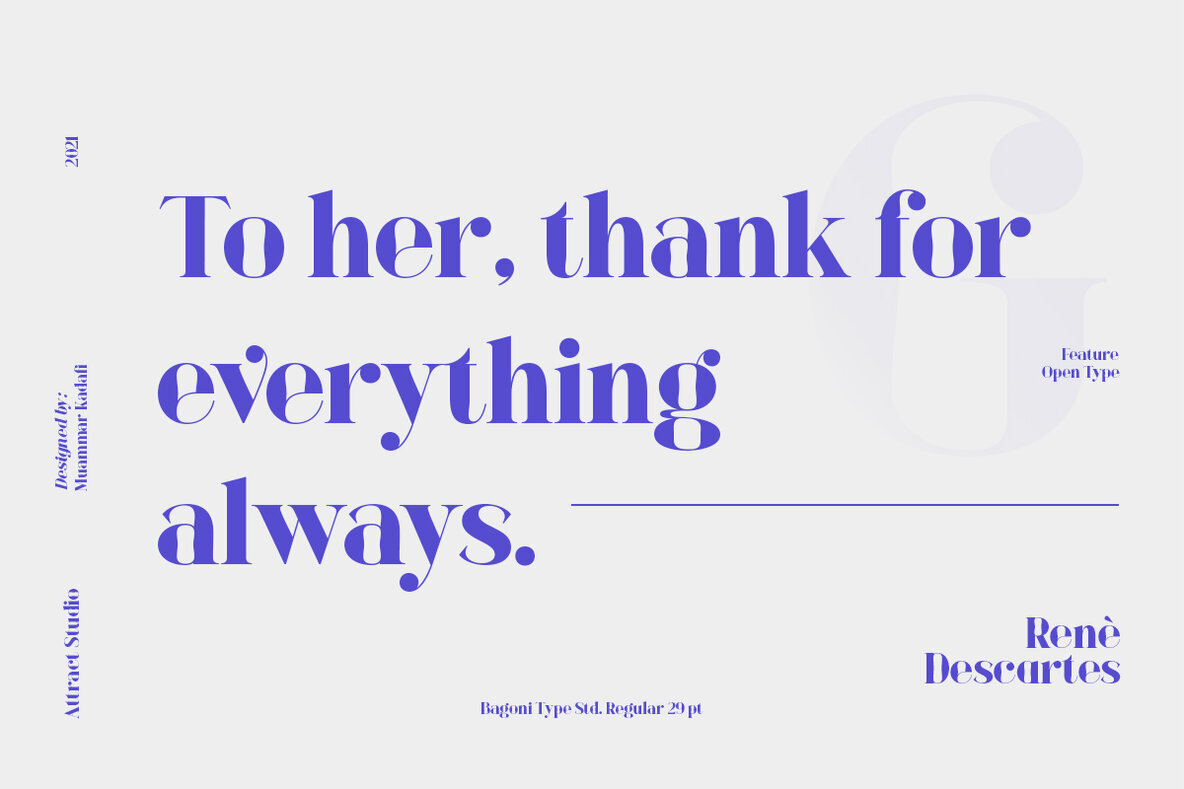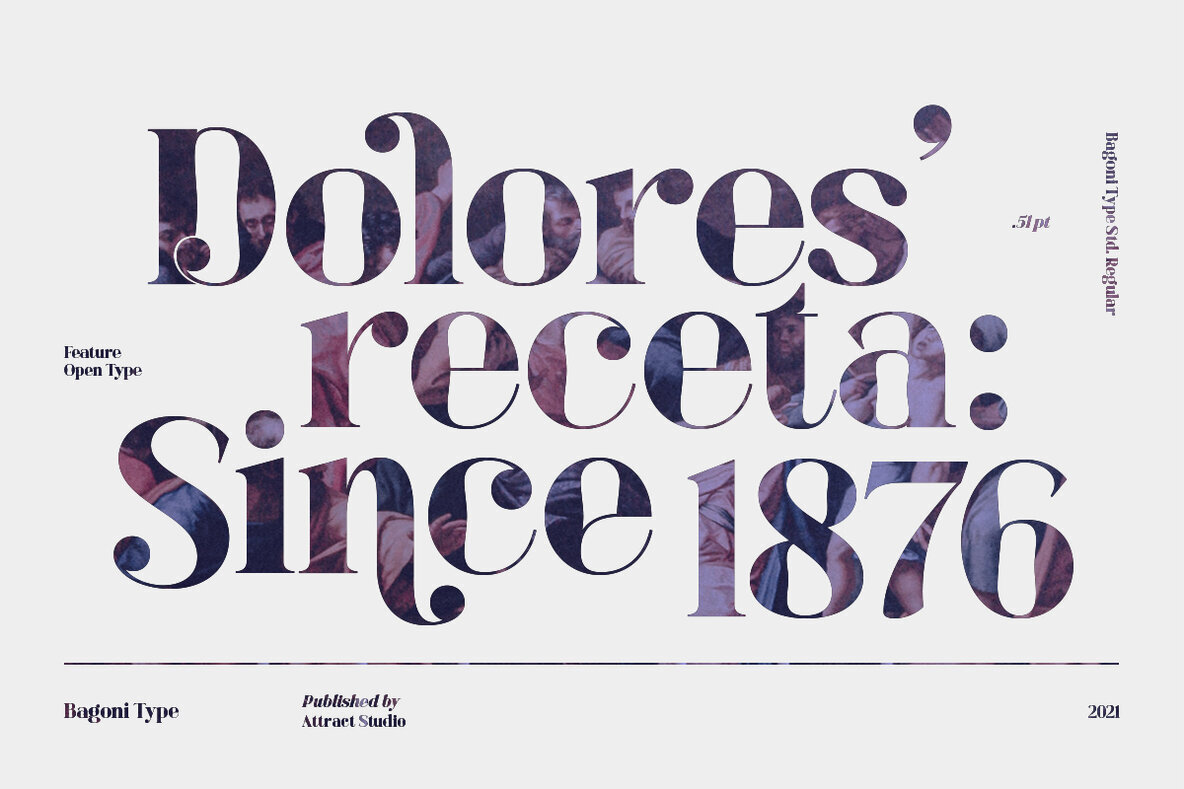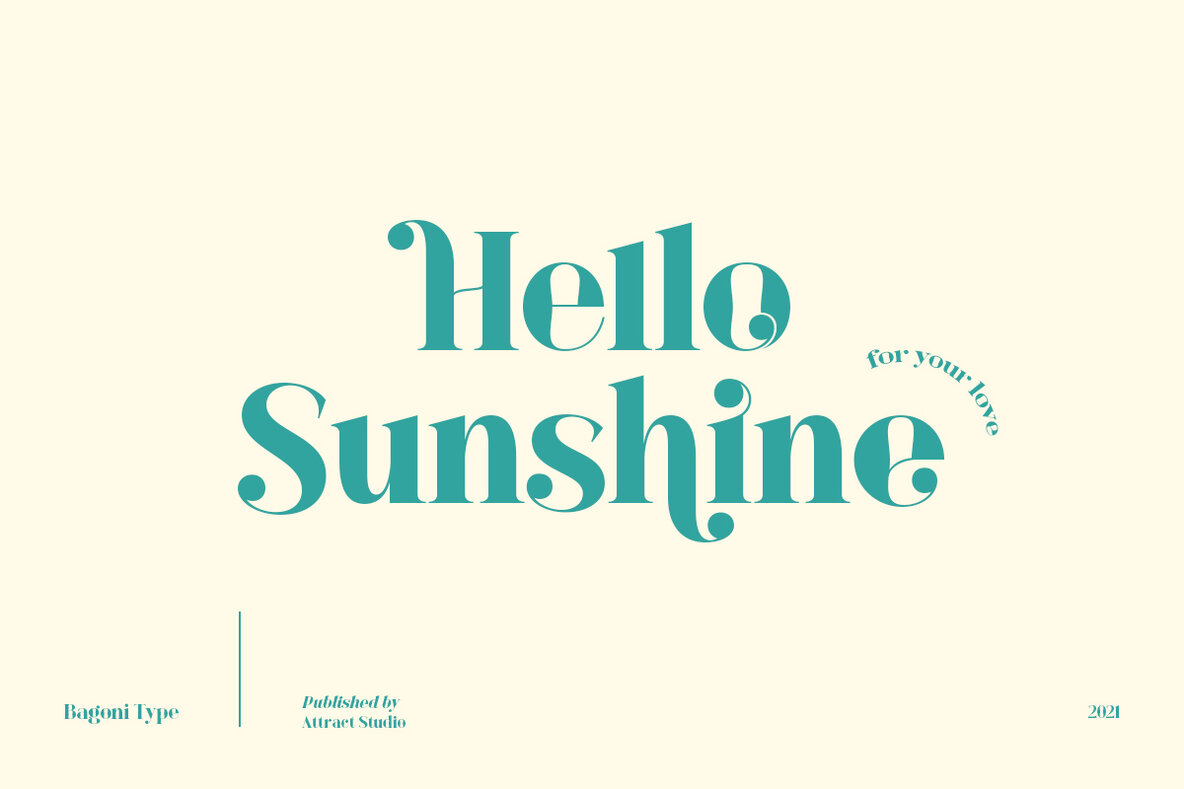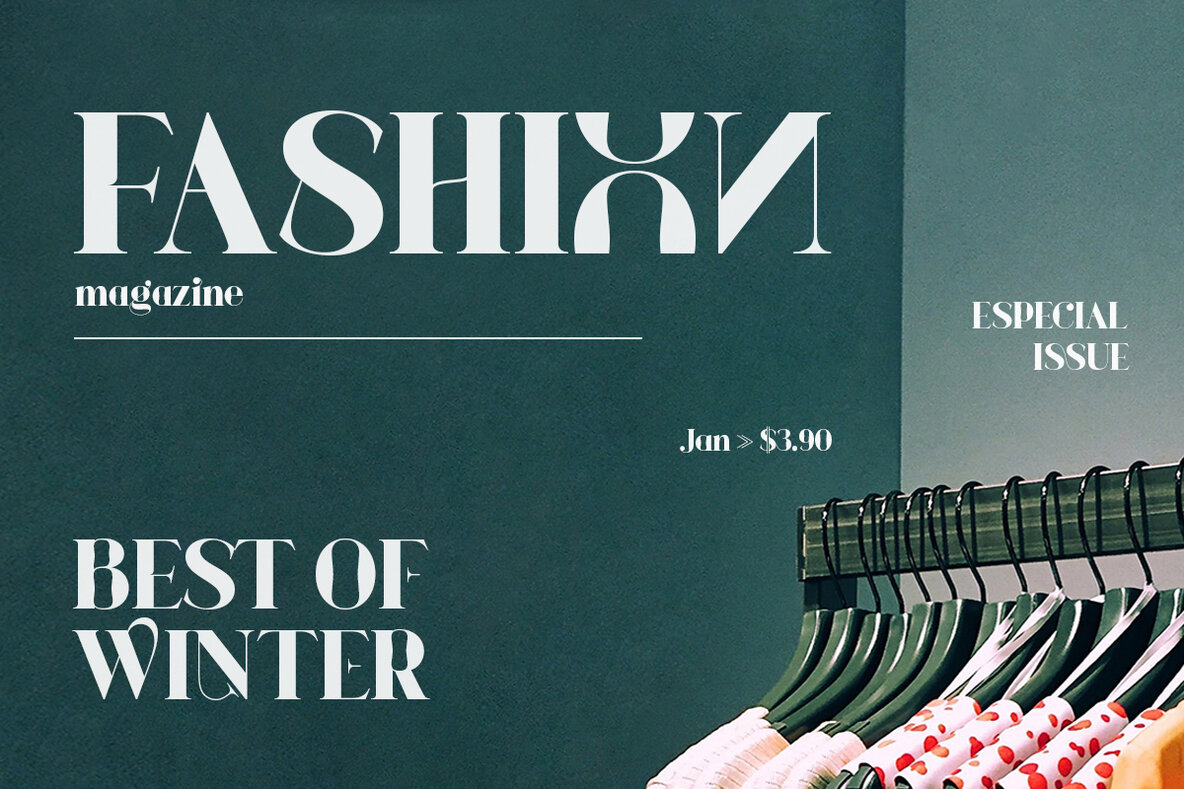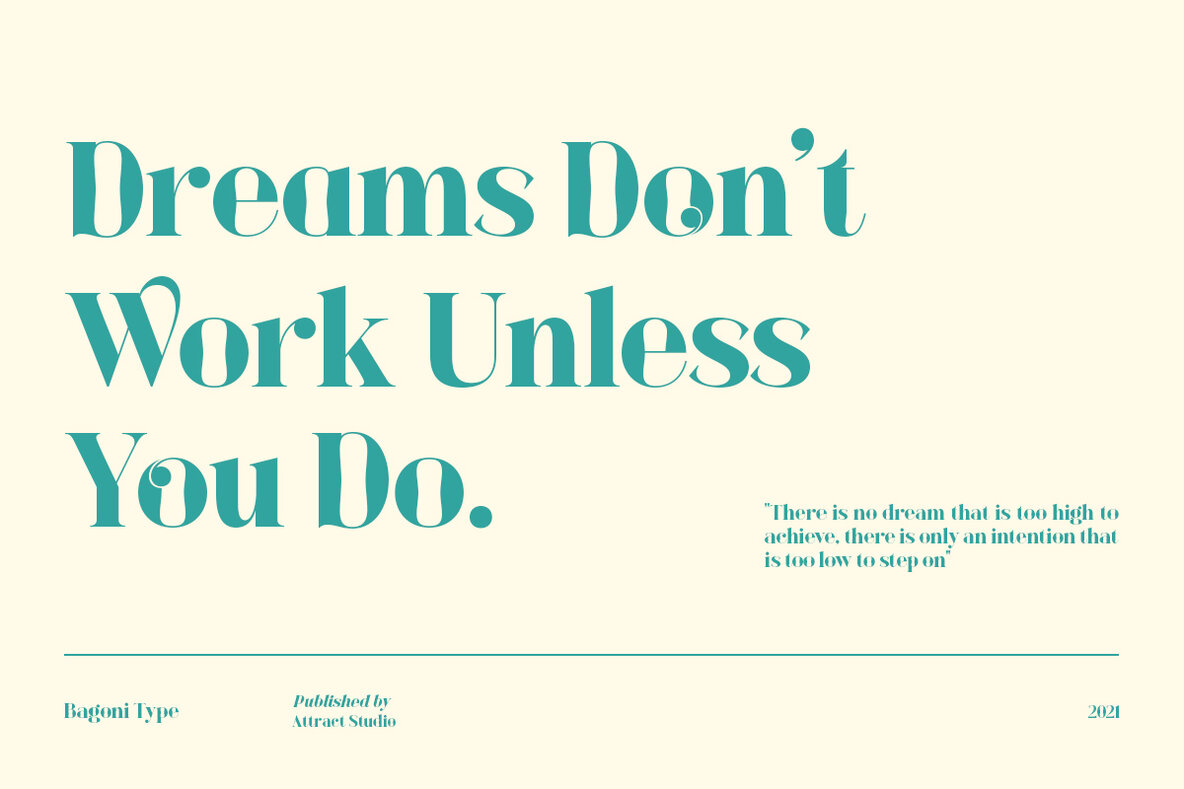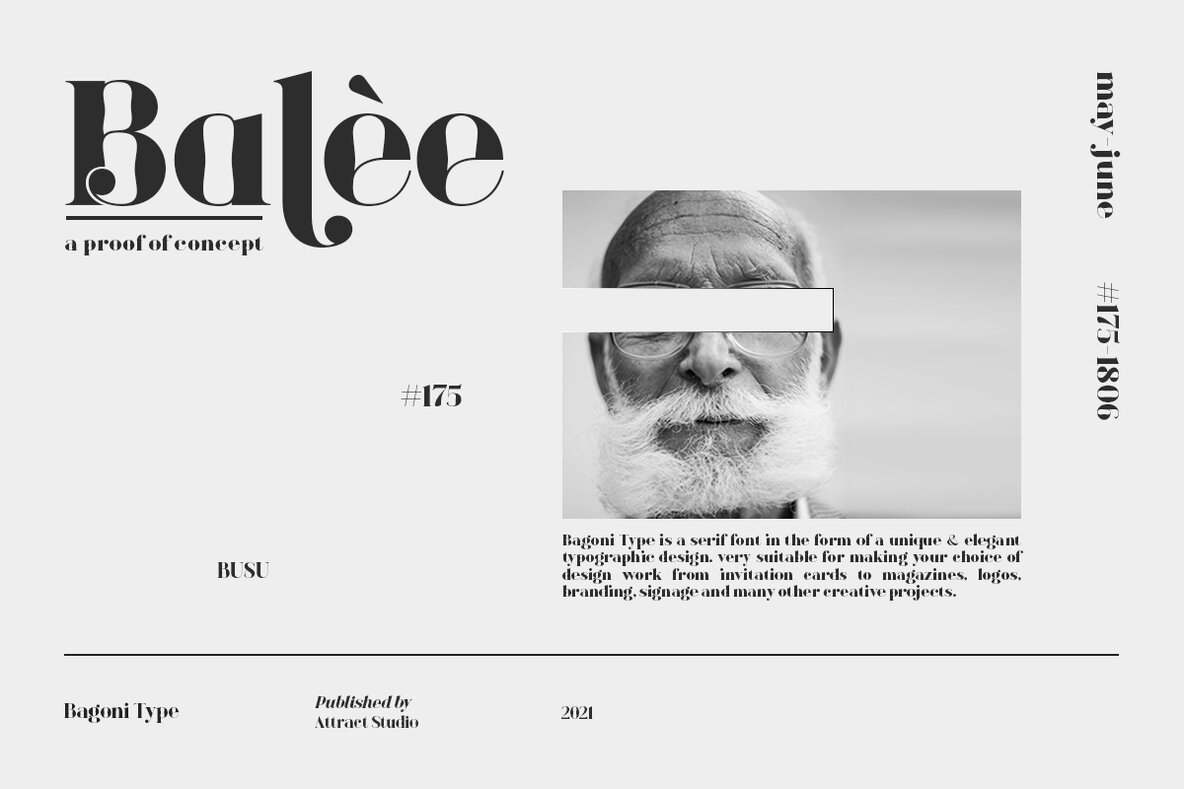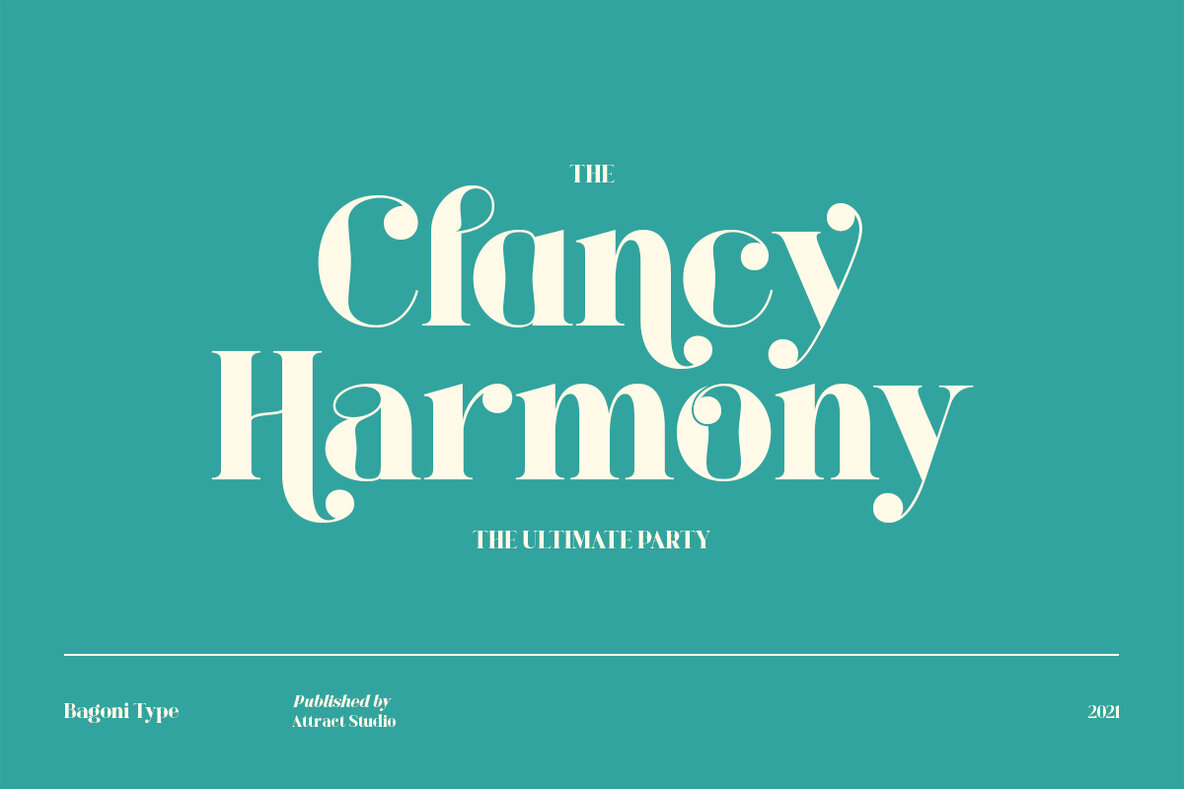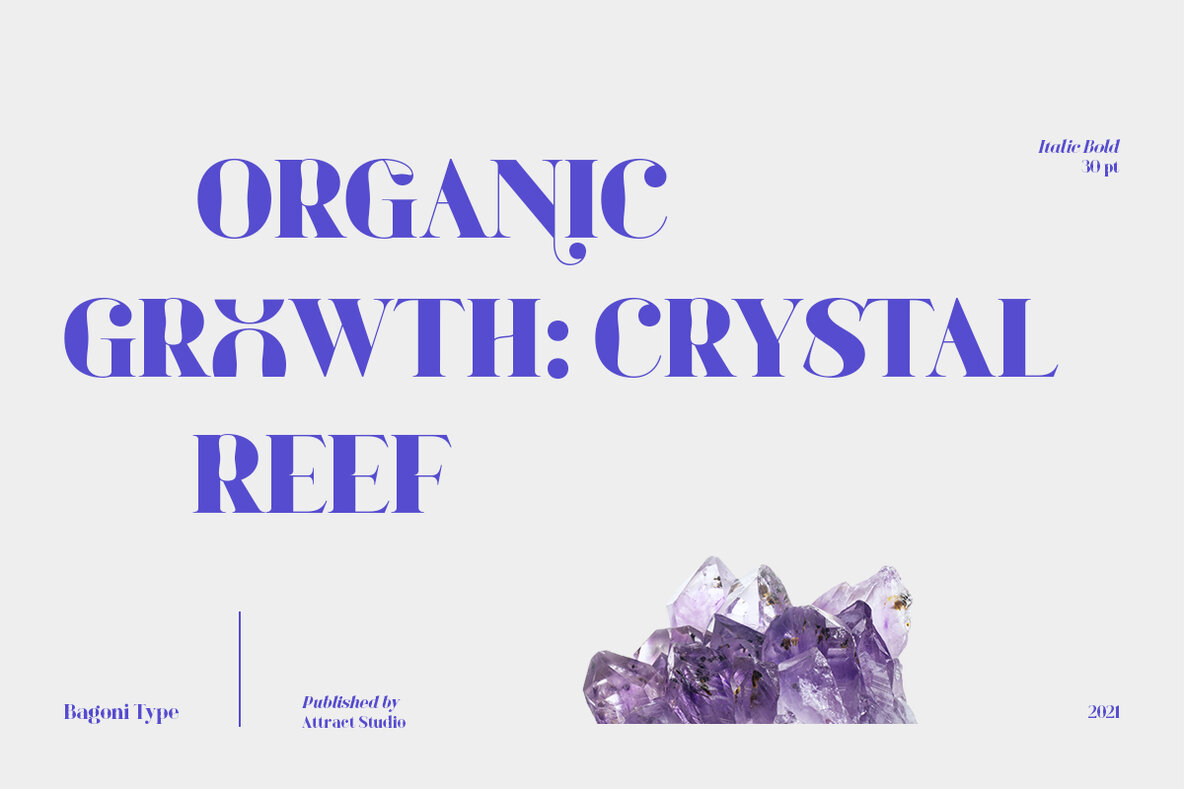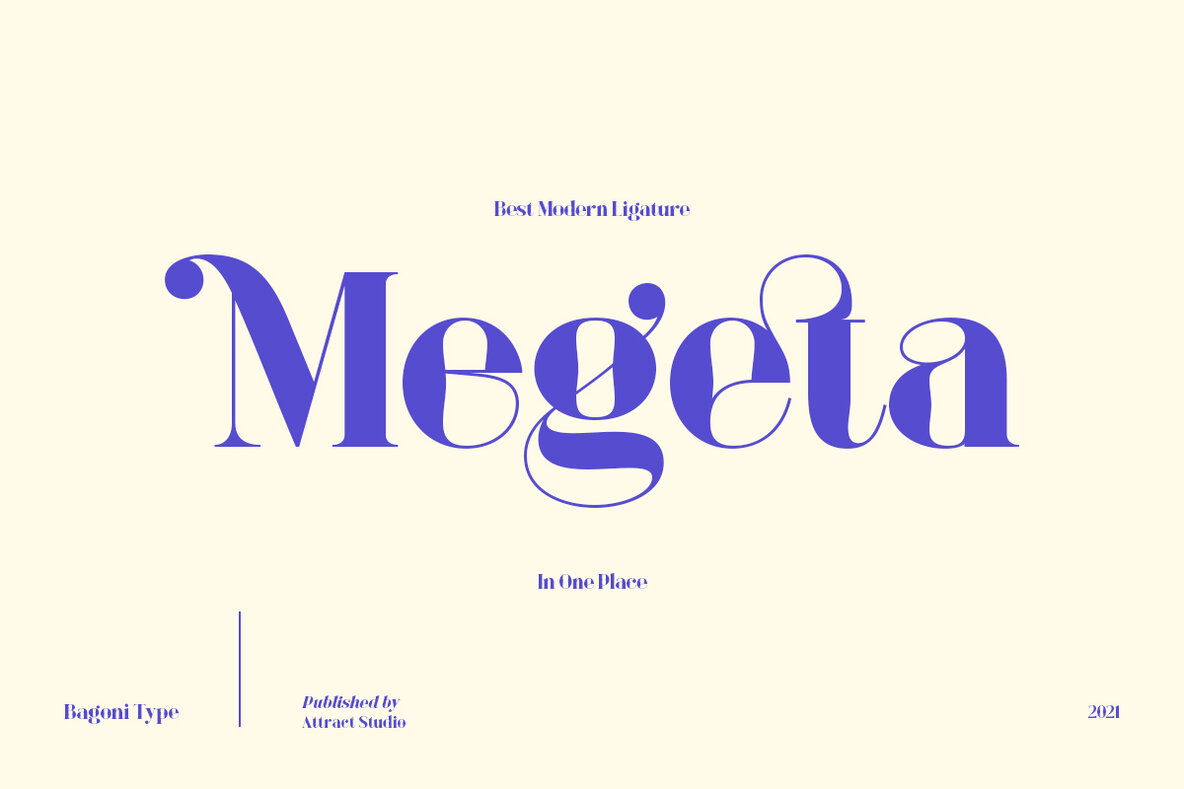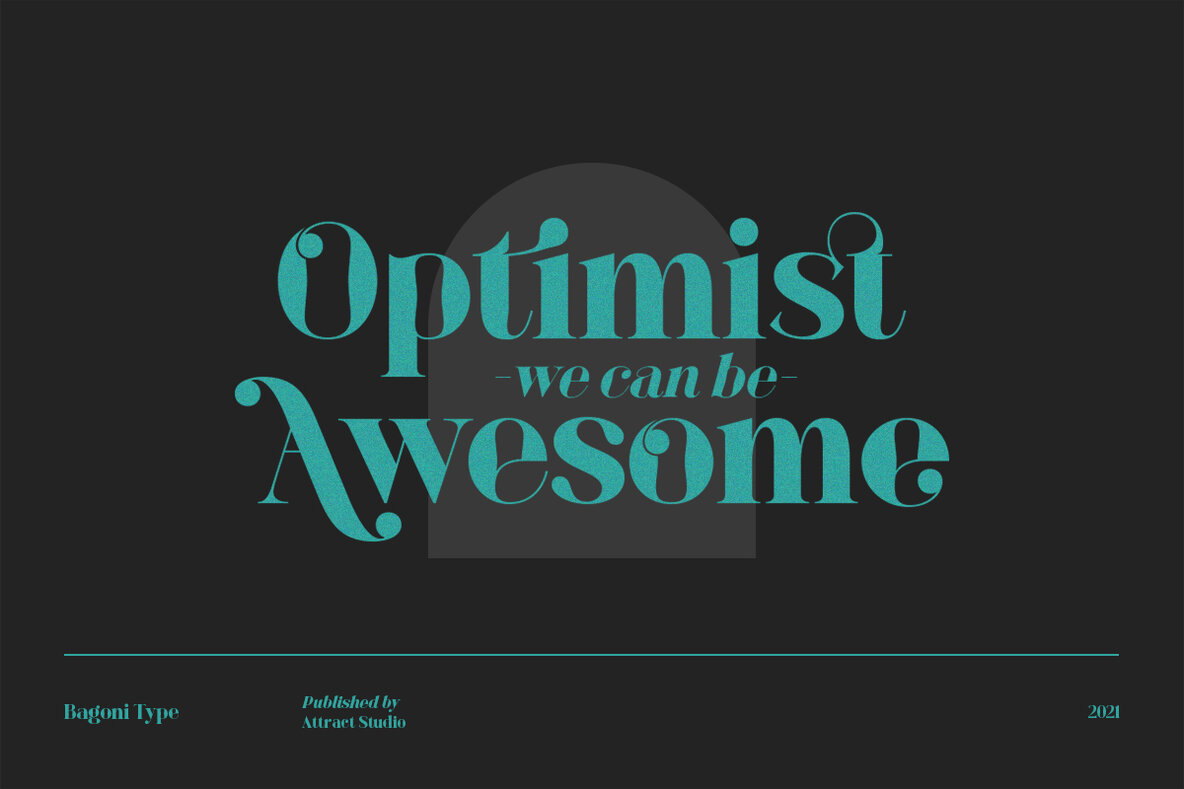
Bagoni Type Font
For a look that's classic but still modern, choose Bagoni Type. Its serif-inspired design is perfect for editorial media style layouts from the 80s with its high contrast and simple shape making it effortless to read - whether your text size is big or small! This versatile font also has various OpenType features which are great for wedding invitations, branding purposes, posters and more.